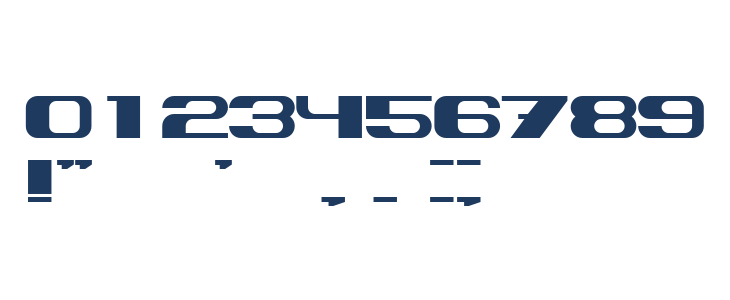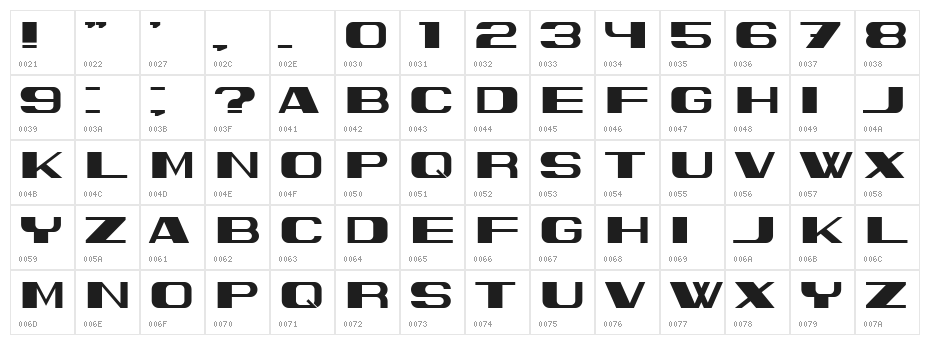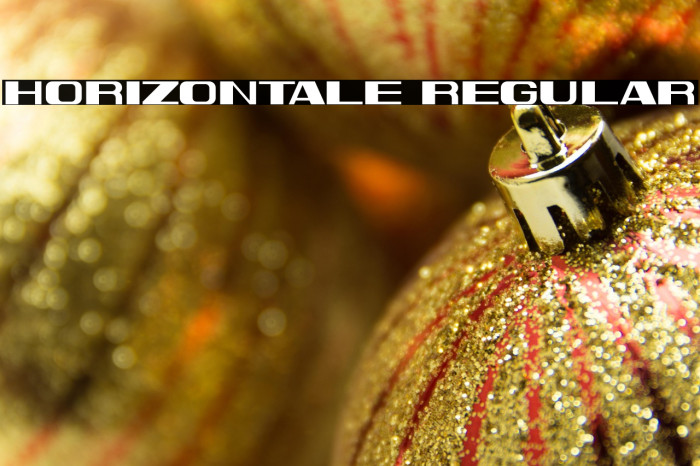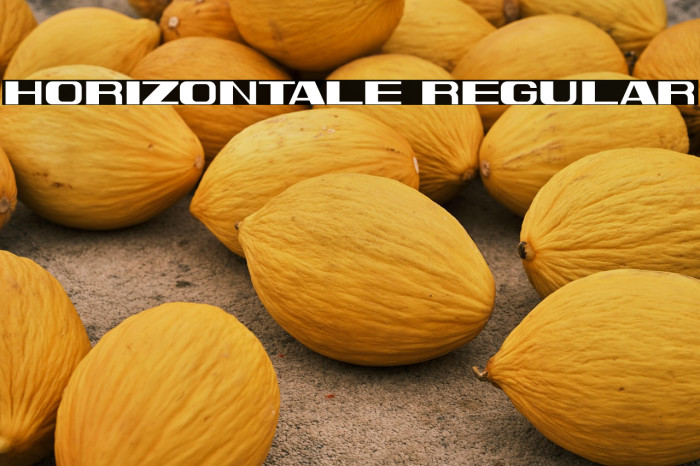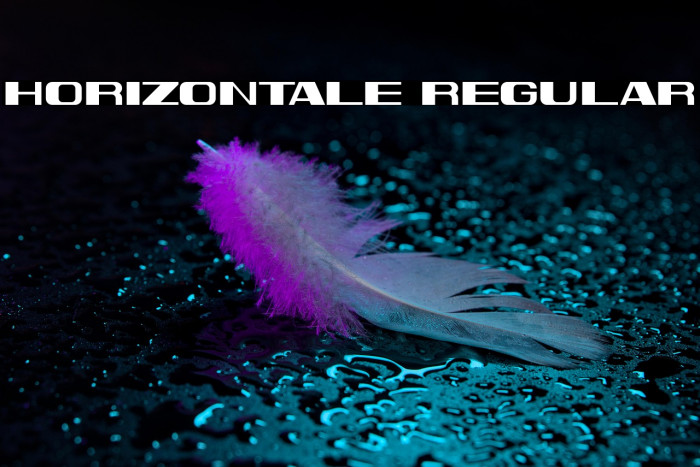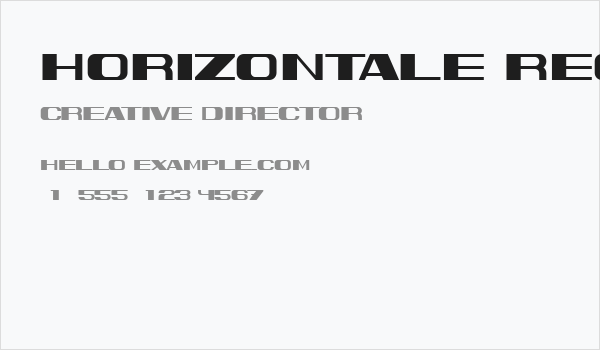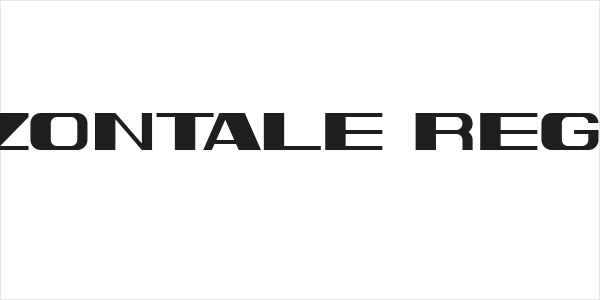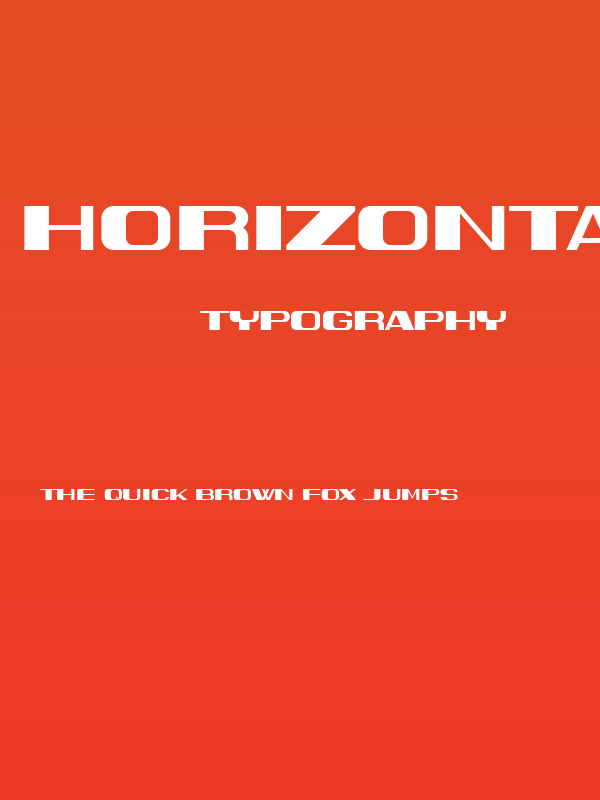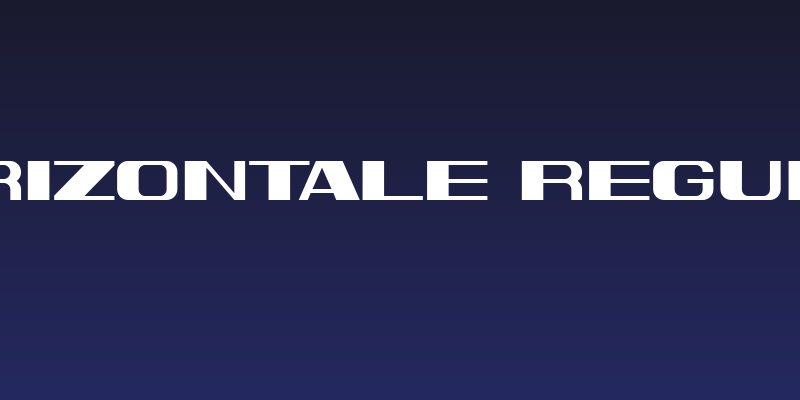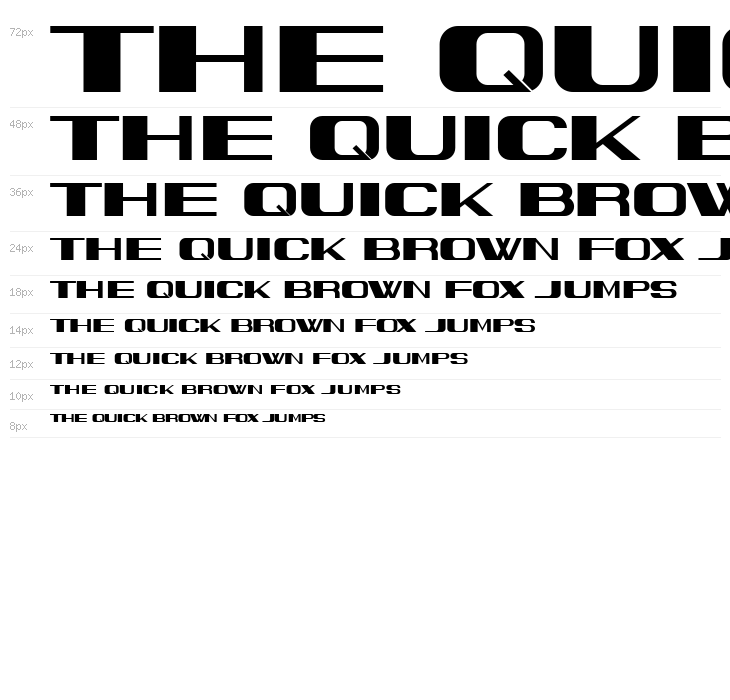
Horizontale Regular Font
Horizontale Regular Description
This font features a bold, modern design with a strong geometric influence. The characters are wide and have a distinct horizontal emphasis, creating a sense of stability and strength. The uppercase letters are particularly striking, with sharp angles and clean lines that convey a sense of precision. The numbers and special characters maintain this bold aesthetic, ensuring consistency across all glyphs. The overall style is contemporary and assertive, making it ideal for projects that require a strong visual impact.
| Proposed Projects | Ideal for branding, headlines, posters, and any design requiring a bold, modern aesthetic. |